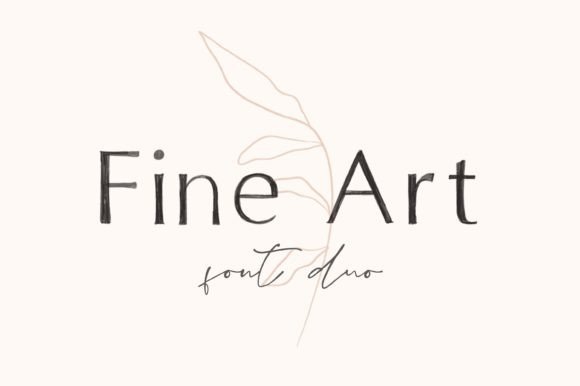
Introducing Fine Art Duo Font, the epitome of aesthetic charm and elegance. Created by the talented elvinova, this font duo is here to revolutionize your creative endeavors. With its hand-painted design and modern appeal, Fine Art is the ultimate choice for anyone seeking the best font for memes and modern designs.
Crafted with utmost care, Fine Art Duo Font is a display font that effortlessly captivates the eyes of your audience. Its artistic strokes breathe life into your projects, making them stand out from the crowd. Whether you're looking to create a stunning logo, establish a memorable brand identity, or add a touch of sophistication to wedding cards, Fine Art is your go-to companion.
Immerse yourself in a world of endless possibilities as Fine Art Duo Font seamlessly blends into various design elements. From captivating packaging designs to visually striking stationery, this font effortlessly captures attention and leaves a lasting impression. Your website design will exude professionalism and creativity, drawing visitors in and enticing them to stay.
But what sets Fine Art apart from the rest? Its versatility and adaptability! With its sleek and modern appeal, this font duo effortlessly complements any project, enhancing its visual appeal and making it truly exceptional. Each character is meticulously crafted to perfection, ensuring a seamless harmony that will leave your audience in awe.